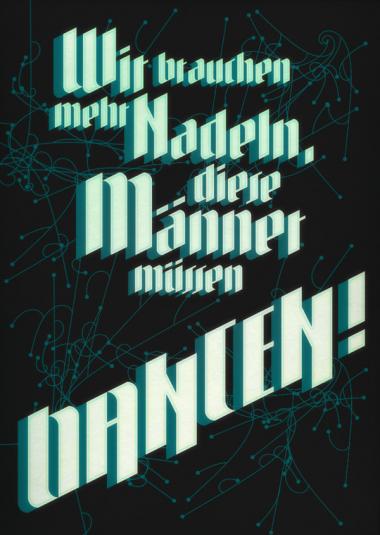
Little font example.
boom!
this is a gorgeous sample.
to see it in action is unexpected deliciousness :)
Truly amazing. A kind or retro 50's horror feel to it. 10/10.
B, K & G are my favourites
S & T may need a look at though.
hey, thank you very much guys. djnippa you're right T is a bit boring and i had serious problems with S (also with Z). i don't know how many versions i tried. i can live with the current shape but i'm always open for suggenstions. btw. what ampersand would you prefer?
This is a sweet font and a sweeter umlaut.
Great sample.
Maybe you could fashion an S out of the O? Add a crossbar and carve out part of the top-right and bottom-left?
I like the & on the left.
Good work, I think some glyphs needs a litte bit of improvements like Q,S and T , but overall looks great
Definitely the left ampersand
Alright guys. I changed some characters. N, Q, S and T are improved. I also added the ampersand and some ornaments. I also changed a, e and z. I realized that the old a and e looked quite loose in combination. Now the whole font has a more compact appearance.
Great changes.
dito!
sweet than honey can get
Congratulations! FontStruct Staff have deemed your FontStruction worthy of special mention. “Herrengedeck” is now a Top Pick.
Nice use of the angled brick. Lovely work. Nice straight-jacket M icon too.
great work. classic sample :)
Congratulations! FontStruct Staff have deemed your FontStruction worthy of special mention. “Herrengedeck” is now a current Featured FontStruction.